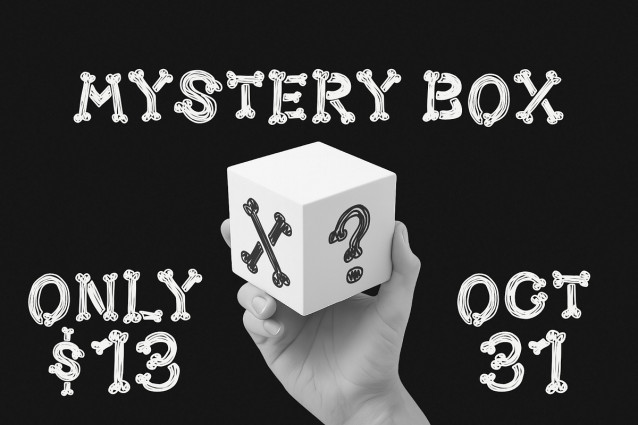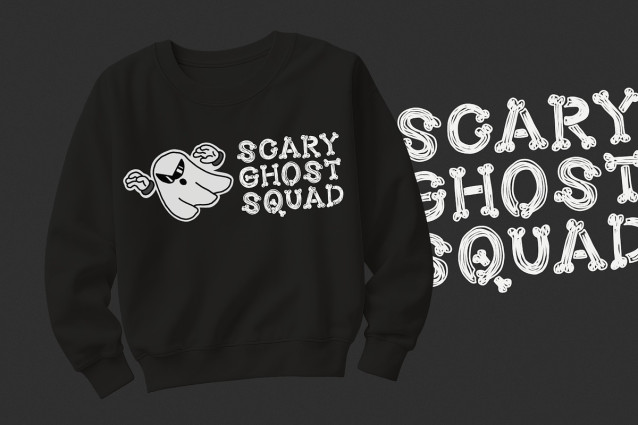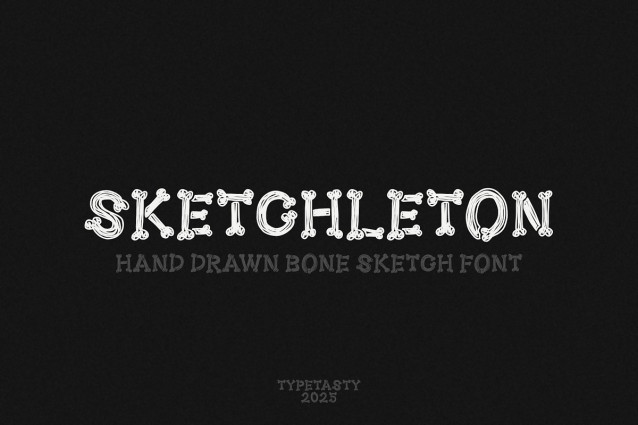
Sketchleton Font is a playful bone sketch display font designed for designers, creators, and brands who want to stand out with a spooky yet fun aesthetic. With its hand-drawn bone-inspired letters, this font is perfect for Halloween designs, children’s books, quirky packaging, social media content, and event branding. Whether you’re working on logos, posters, or merchandise, SKETCHLETON delivers a bold, creepy, yet lovable vibe that instantly grabs attention.
Style & Vibe: SKETCHLETON is a hand-drawn bone sketch display font that mixes a spooky yet playful energy. It feels quirky, fun, and slightly eerie perfect for Halloween themes, kids’ spooky stories, and eye-catching designs that need personality.
Intended Market Vibe: Great for Halloween posters, Instagram content, spooky party invitations, children’s books, merchandise, and edgy branding.
Letterform Structure: Handcrafted, sketch-like strokes with bone-inspired shapes. Each character feels organic and slightly irregular, giving it a raw, natural charm.